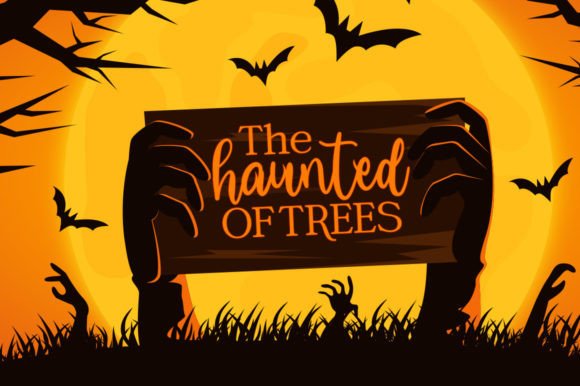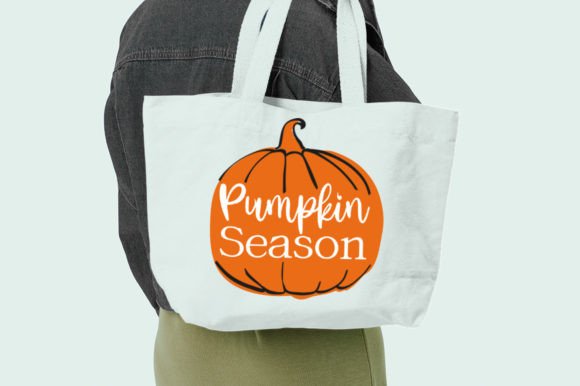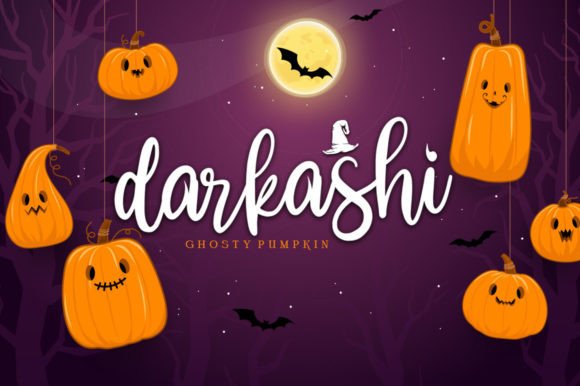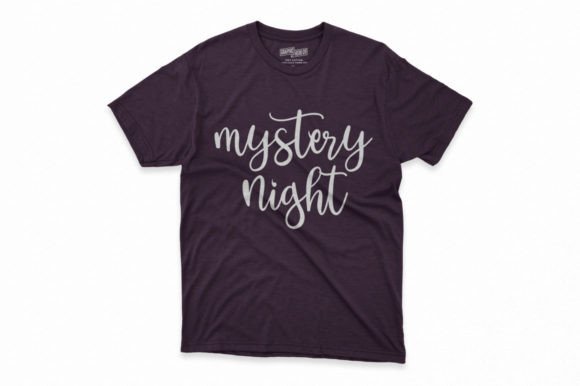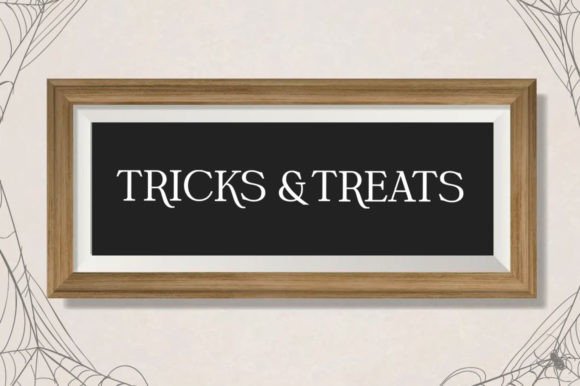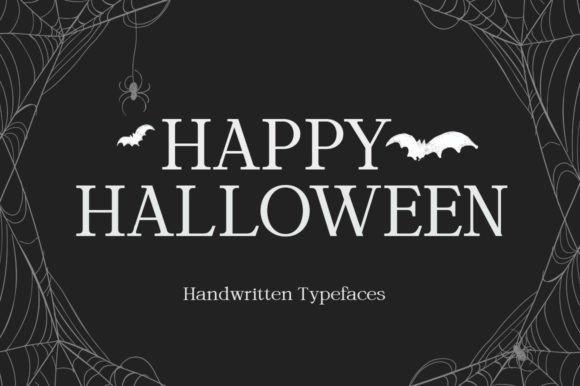
Discover the Charming Ghosty Banditto Font: Elevate Your Designs with a Lovely Font Duo
Are you a designer or crafter looking for a unique and versatile font to elevate your creative projects? Look no further than the Ghosty Banditto font, a lovely font duo that combines a beautiful script and serif typeface. This stunning font pair is perfect for creating thick watercolor designs or handwriting styles that will make your work stand out.
What is Ghosty Banditto Font?
Ghosty Banditto is a carefully crafted font duo that consists of a script and serif typeface. The script font features elegant, flowing lines that evoke a sense of sophistication and whimsy, while the serif font provides a sturdy and classic contrast. Together, they form a harmonious pair that can be used to create a wide range of designs, from delicate wedding elements to bold t-shirt graphics.
What Makes Ghosty Banditto Font So Versatile?
One of the key benefits of the Ghosty Banditto font is its incredible versatility. This font duo can be used for a variety of design projects, including:
- Blog Titles: Add a touch of elegance to your blog titles with the Ghosty Banditto script font, or use the serif font for a more classic look.
- Posters: Create eye-catching posters with the bold and playful Ghosty Banditto font duo.
- Wedding Elements: Use the Ghosty Banditto font to create beautiful wedding invitations, stationery, and decorations.
- T-Shirts and Clothing: Design unique and stylish t-shirts, hoodies, and other clothing items with the Ghosty Banditto font.
- Book Covers: Create captivating book covers with the Ghosty Banditto font duo, perfect for fiction, non-fiction, or children’s books.
- Business Cards: Elevate your business cards with the professional and elegant Ghosty Banditto serif font.
- Greeting Cards: Design heartfelt greeting cards for special occasions with the Ghosty Banditto script font.
- Branding: Use the Ghosty Banditto font duo to create a consistent brand identity across various platforms.
- Merchandise: Create a wide range of merchandise, such as mugs, tote bags, and phone cases, with the Ghosty Banditto font.
Why Choose Ghosty Banditto Font?
With so many fonts available, why choose Ghosty Banditto? Here are just a few reasons:
- Unique and Eye-Catching: The Ghosty Banditto font duo is unlike any other font on the market, offering a distinctive and captivating style that will set your designs apart.
- High-Quality: The Ghosty Banditto font is crafted with precision and attention to detail, ensuring a high-quality design that will look great in any project.
- Customizable: The Ghosty Banditto font can be easily customized to fit your specific design needs, allowing you to experiment with different styles and effects.
Tips for Using Ghosty Banditto Font
To get the most out of the Ghosty Banditto font, here are a few tips:
- Experiment with Different Styles: Try pairing the script and serif fonts in different ways to create unique and interesting effects.
- Play with Color: The Ghosty Banditto font looks great in a variety of colors, so don’t be afraid to experiment with different hues and gradients.
- Add Texture: Add texture to your designs by layering the Ghosty Banditto font over a background image or texture.
- Keep it Simple: Don’t overcomplicate your design – sometimes, the simplest uses of the Ghosty Banditto font can be the most effective.
The Ghosty Banditto font duo is a versatile and charming addition to any designer’s or crafter’s toolkit. With its elegant script and sturdy serif typeface, this font pair is perfect for creating a wide range of designs, from delicate wedding elements to bold t-shirt graphics. Whether you’re a seasoned pro or just starting out, the Ghosty Banditto font is sure to inspire your creativity and elevate your designs.